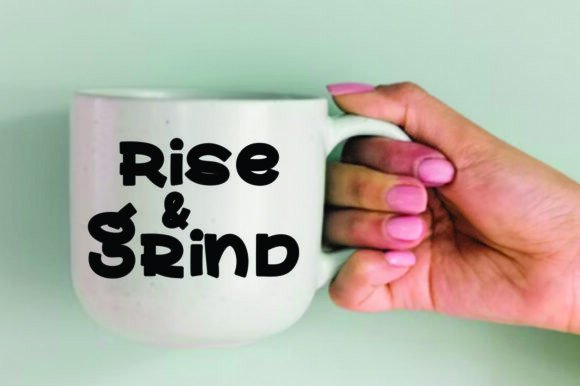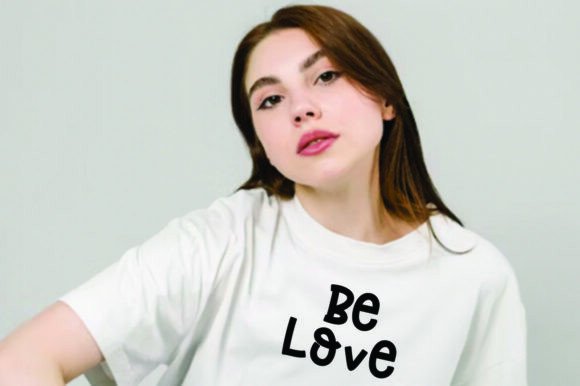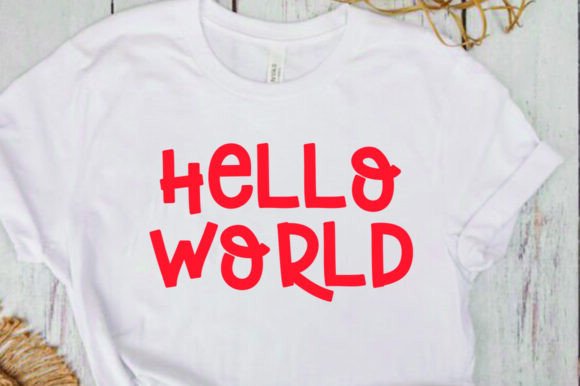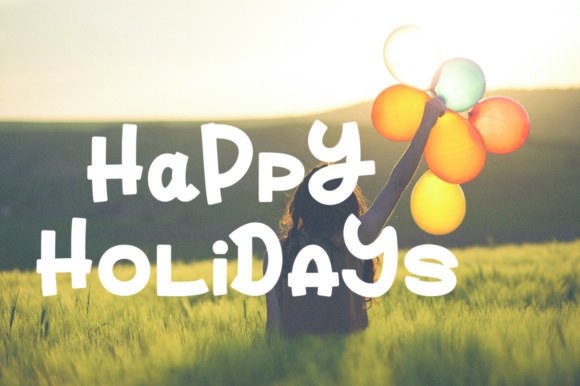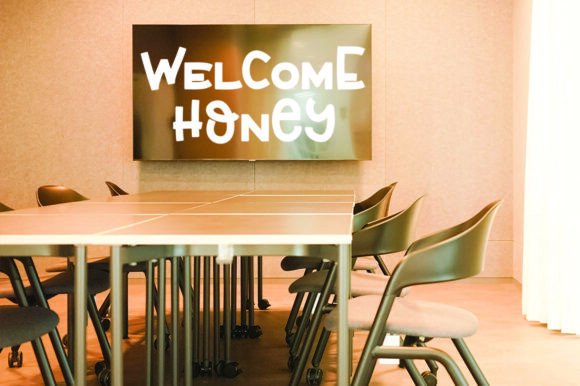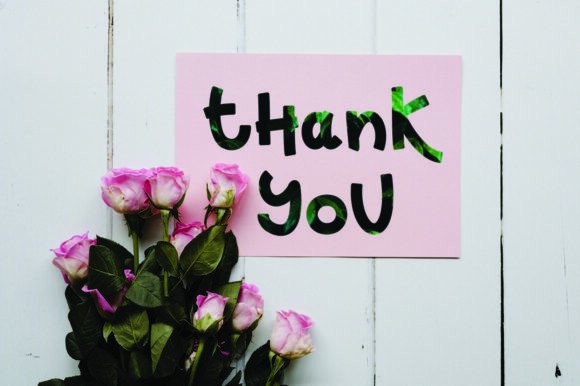
Introduction to Like Hope Font
Have you ever stared at a blank page, waiting for inspiration to strike, only to find solace in the imperfections of handwritten notes scribbled in the margins? For designers, this moment of creative spark can be a game-changer, and that’s exactly what the Like Hope Font embodies. This charming, casual handwritten font radiates warmth and authenticity, making it the perfect addition to any creative project.
Whether you’re working on a branding campaign, crafting social media posts, or designing packaging, the Like Hope Font adds a personal and friendly touch that’s hard to replicate with more formal fonts. Its smooth strokes, relaxed curves, and naturally balanced letterforms make it a valuable design resource that’s both readable and charming.
Key Features of Like Hope Font
- High-quality, professional design ideal for creative projects and design resources
- Offers a crisp and clean aesthetic, suitable for a variety of design applications, from logos to typography
- Unique characteristics include a modern and elegant feel, making it an excellent choice for branding and creative projects
Honest Review: Like Hope Font
As a designer, I’m always on the lookout for high-quality design resources to elevate my creative projects. Recently, I stumbled upon the Like Hope Font, and I’m excited to share my honest review.
What works well: ✨ I was impressed with the font’s elegant and modern design. It’s perfect for creating visually appealing headers and titles in my designs. The transparent background makes it easy to layer with other design elements.
What doesn’t work well: ⚠️ The font is only available in a limited number of styles and weights, which may not be suitable for all design projects. Additionally, the font may not be ideal for projects that require a more dramatic or bold font style.
Overall impression: I’m glad I discovered the Like Hope Font. While it may have some limitations, it’s a great addition to any designer’s toolkit. With its elegant design and transparent background, it’s perfect for a variety of creative projects.
Like Hope Font
Tips for Getting the Most Out of Like Hope Font
To get the most out of the Like Hope Font, experiment with different font sizes, colors, and styles. Combine it with other design elements, such as graphics and images, to create visually appealing designs.
The Like Hope Font is ideal for various creative projects, including graphic design, digital art, and typography-based designs. Its versatility and high-quality design make it a valuable resource for designers and artists.